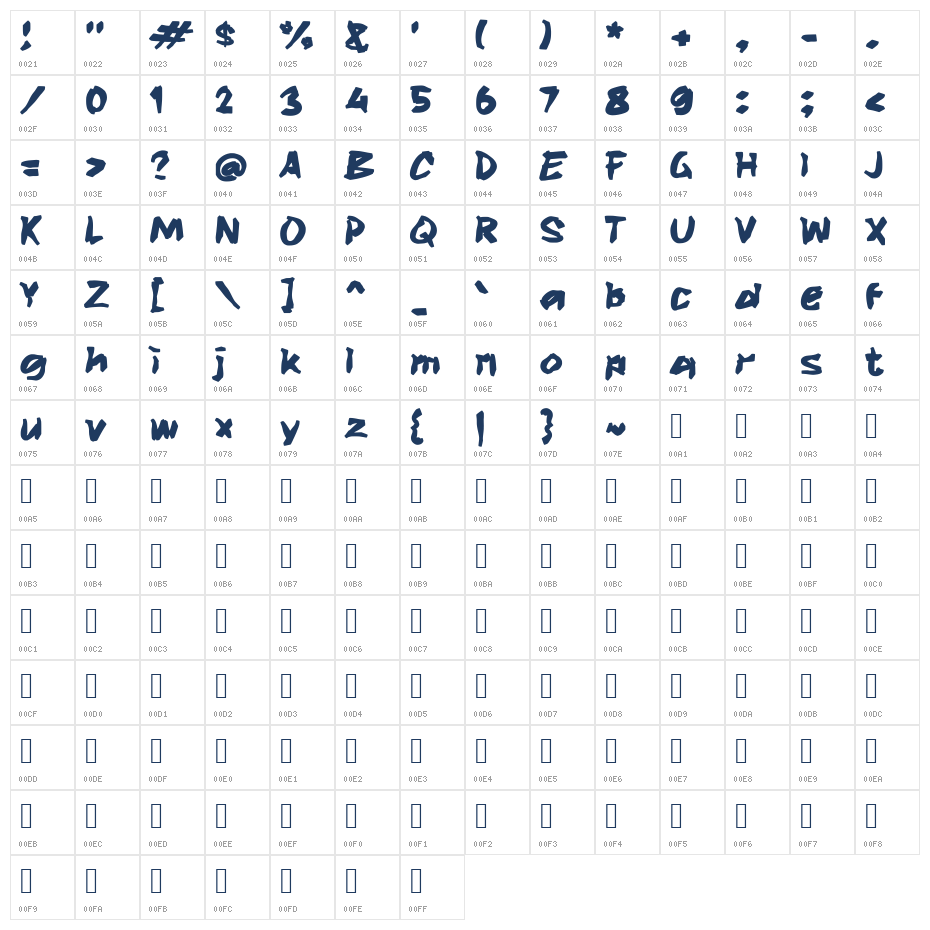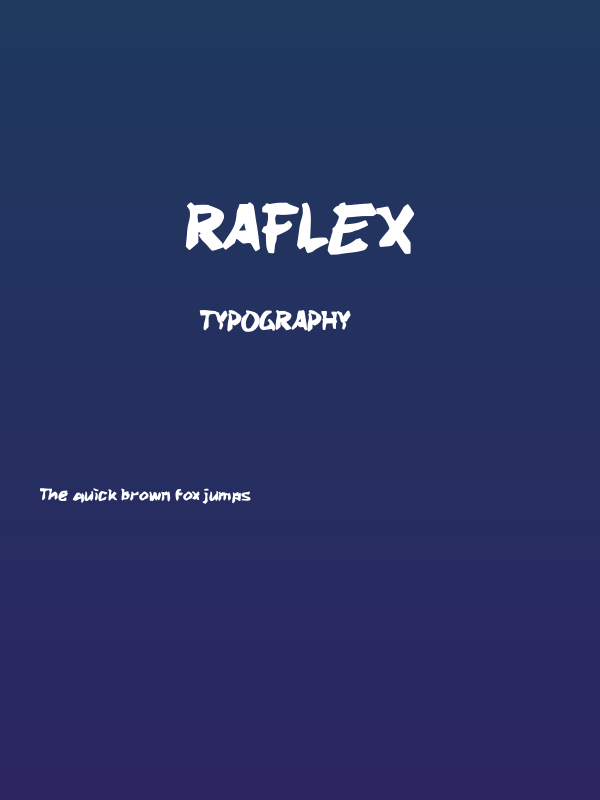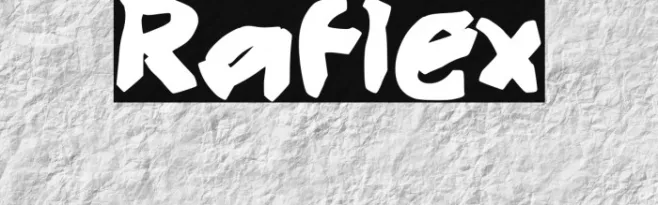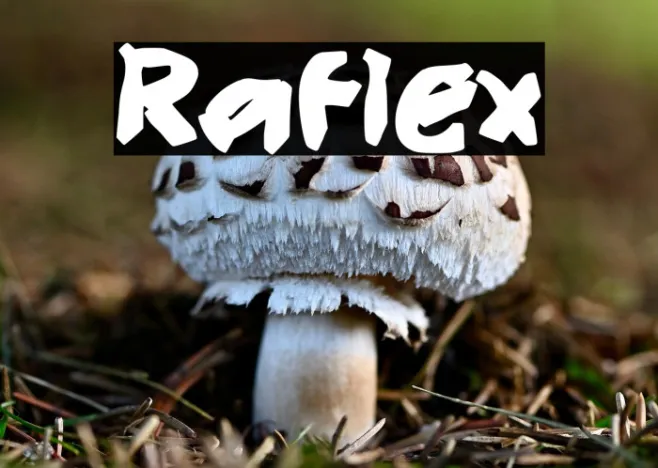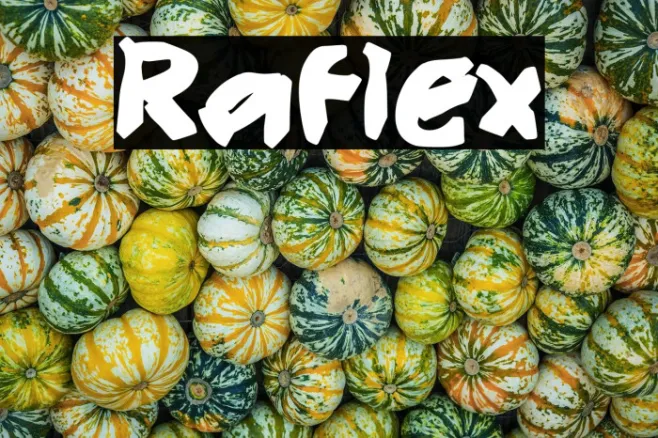
Raflex Font
Raflex Description
Bold, playful, brush-stroke style font with irregular, dynamic strokes.
| Use Case | Headlines, Posters, Children's books, Creative branding |